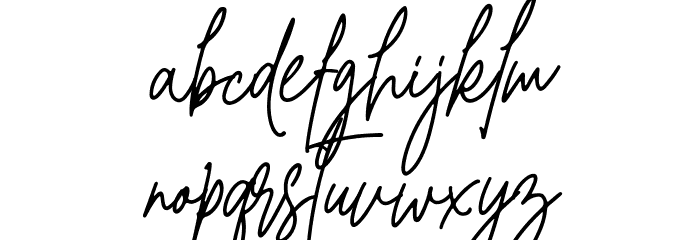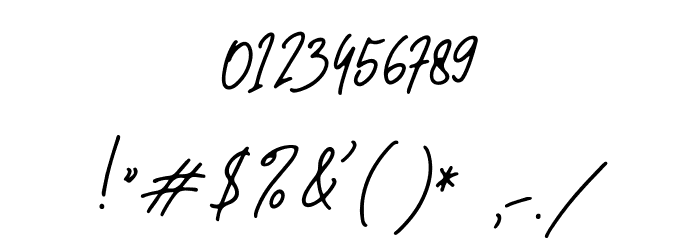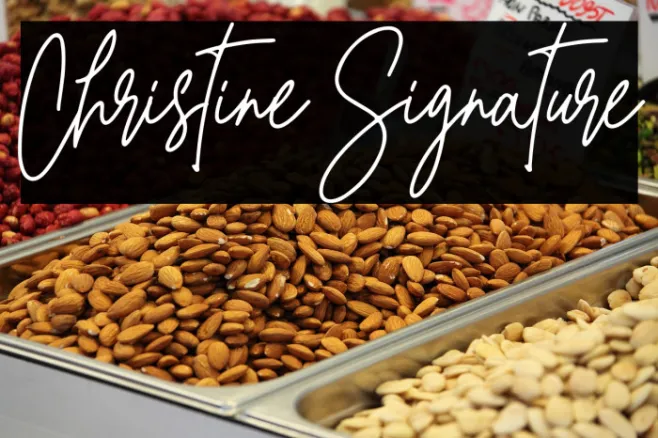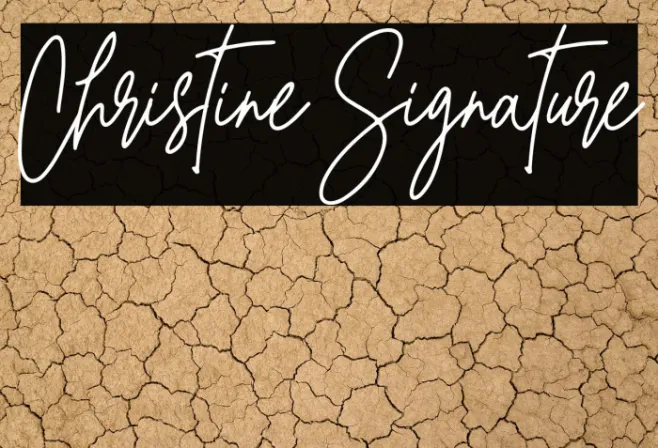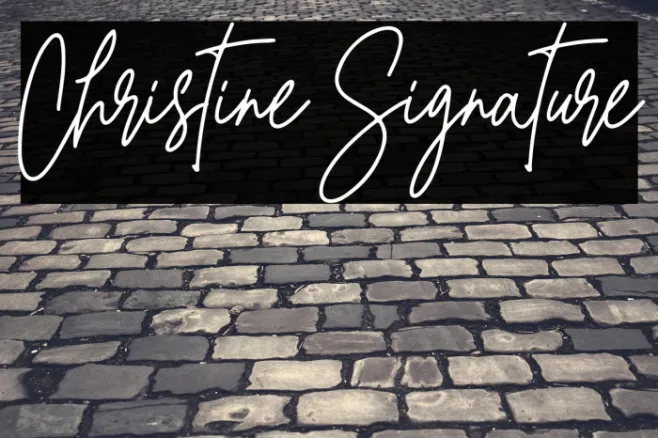
Christine Signature Font
This font embodies a flowing, elegant script style that mimics the fluidity of natural handwriting. The characters are interconnected with graceful loops and curves, giving it a sophisticated and personal touch. The uppercase letters are tall and slightly slanted, while the lowercase letters maintain a consistent baseline with varied heights, adding to its dynamic appearance. The numerals and special characters are crafted with the same attention to detail, ensuring a cohesive look across all elements. This font is ideal for projects that require a personal, handwritten feel.
A flowing, elegant script font with a natural handwriting style.
- Proposed Projects: Ideal for wedding invitations, personal branding, greeting cards, and elegant logos.
- Character Spacing: Tight
- Overall Style: Elegant, Handwritten
- Use Case: Logos, Invitations, Personal Branding